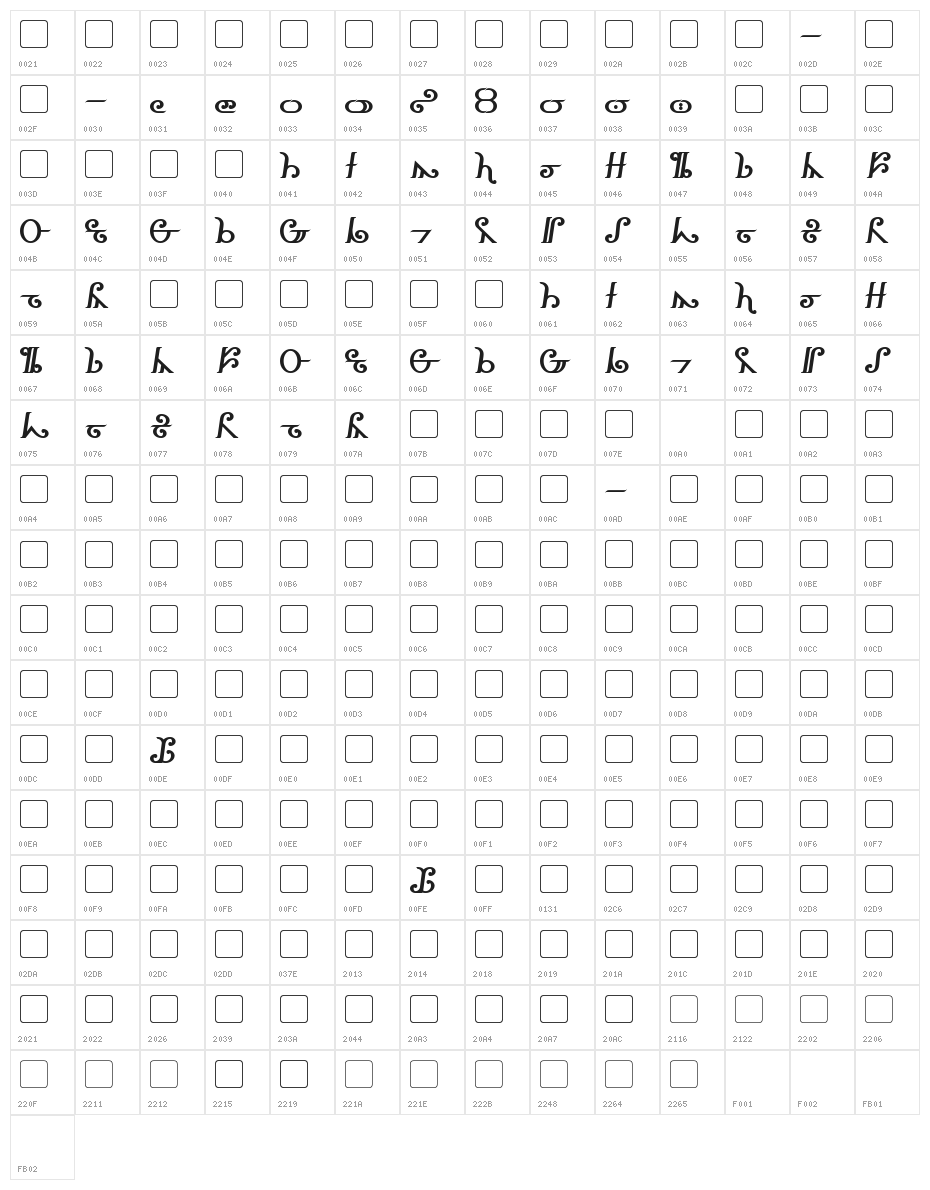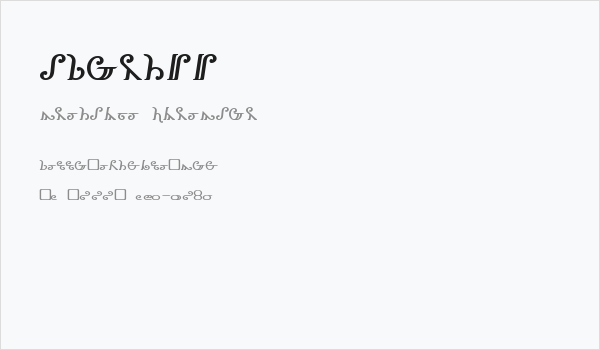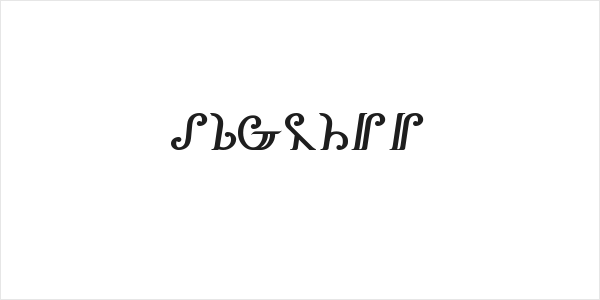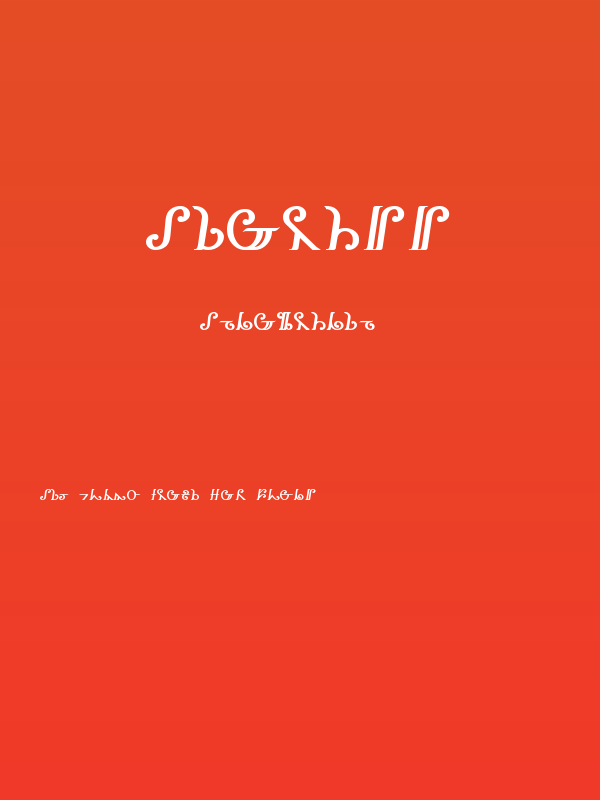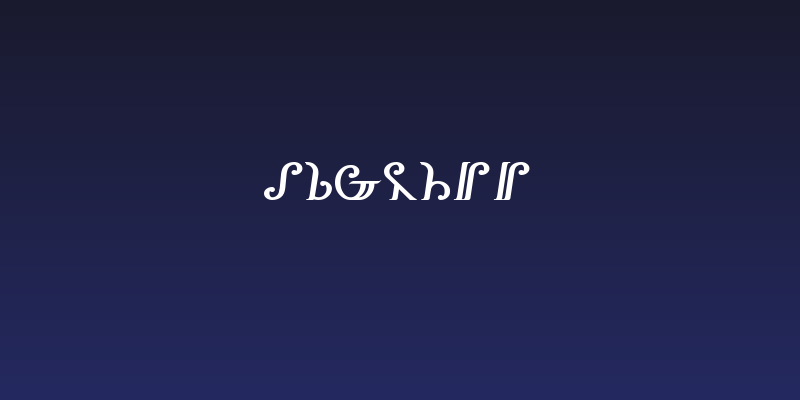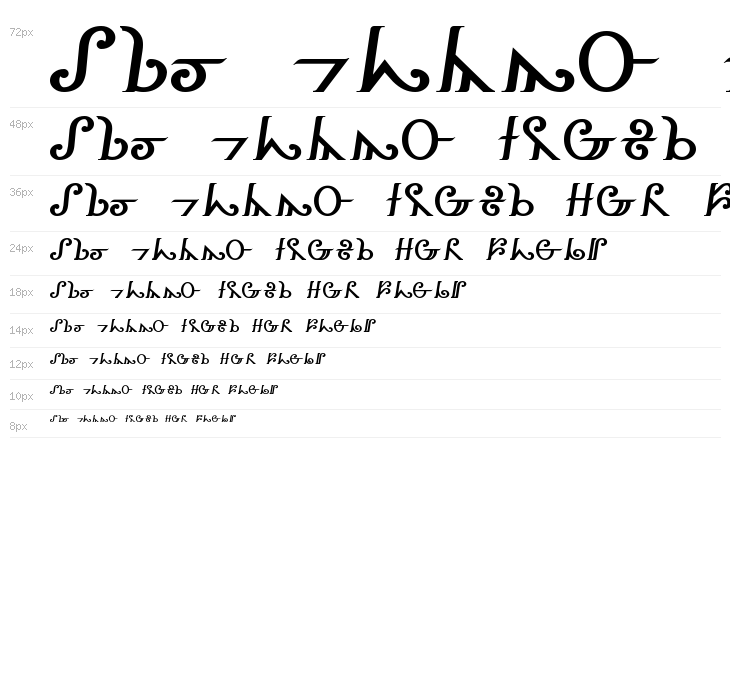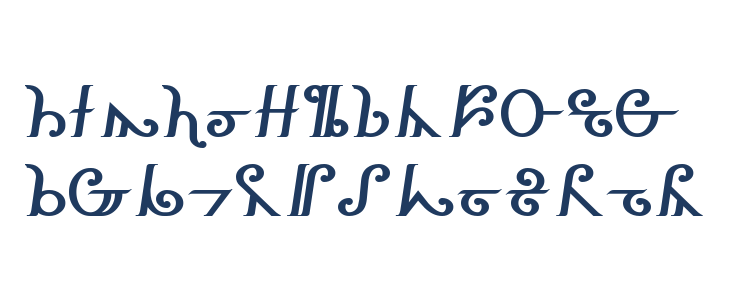
Thorass Font
Thorass Description
This font features a unique and decorative style, characterized by its intricate and swirling design elements. The characters are highly stylized, with each letter incorporating elaborate curves and loops that give it an ornamental appearance. The font has a distinct fantasy or mystical feel, making it suitable for creative and imaginative projects. The uppercase and lowercase letters maintain a consistent design theme, while the numbers and special characters also follow the same decorative pattern. The overall look is both artistic and whimsical, ideal for projects that require a touch of elegance and creativity.
| Use Case | Logos, Headlines, Creative projects |
| Proposed Projects | Ideal for fantasy-themed designs, book covers, game titles, and creative branding. |